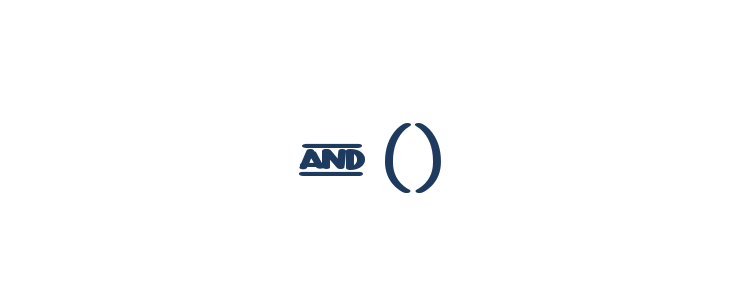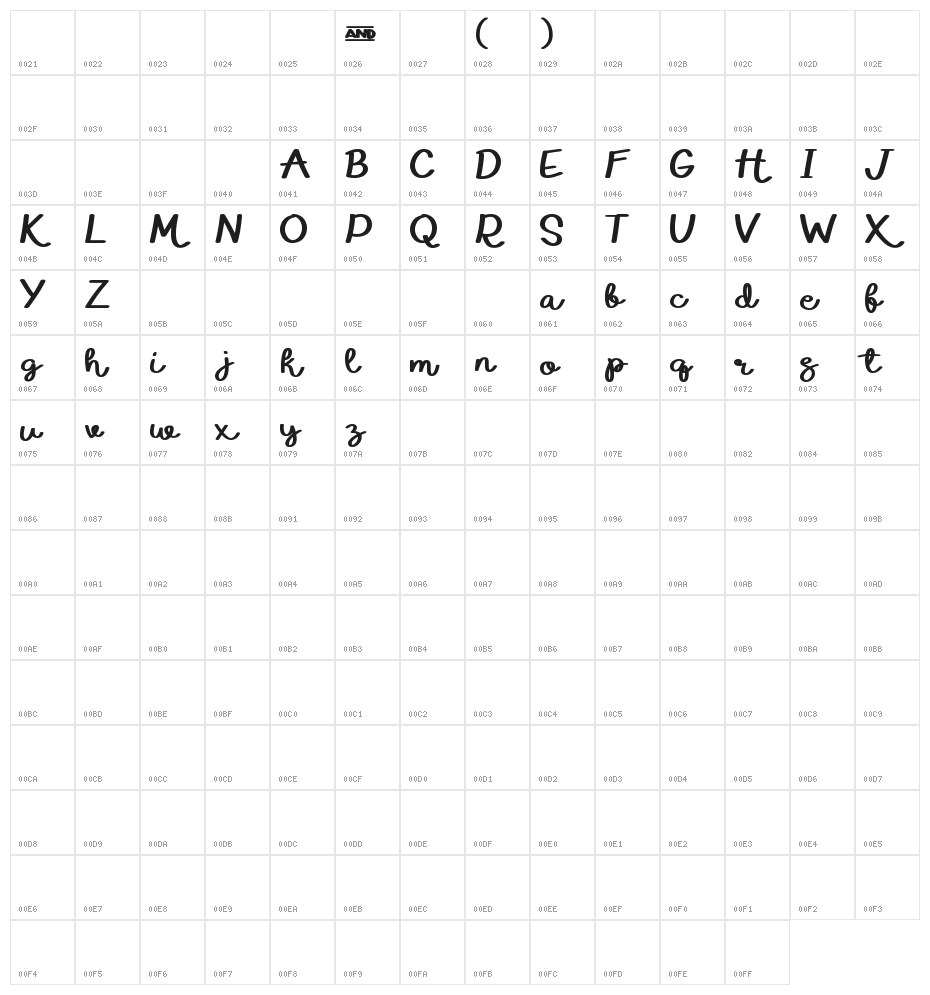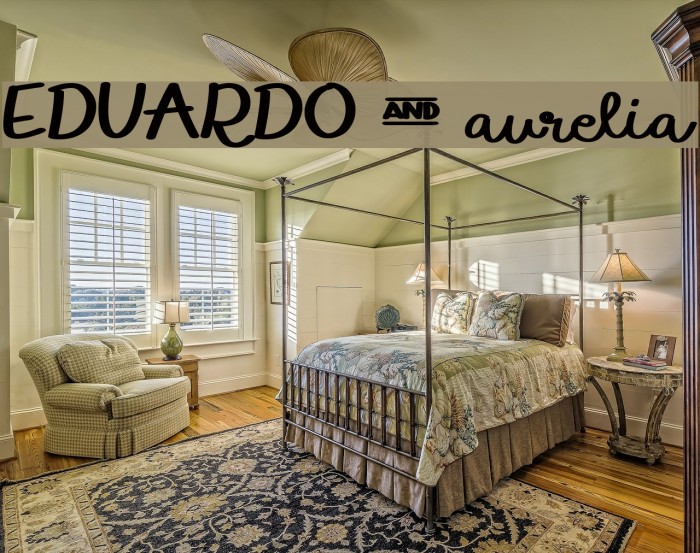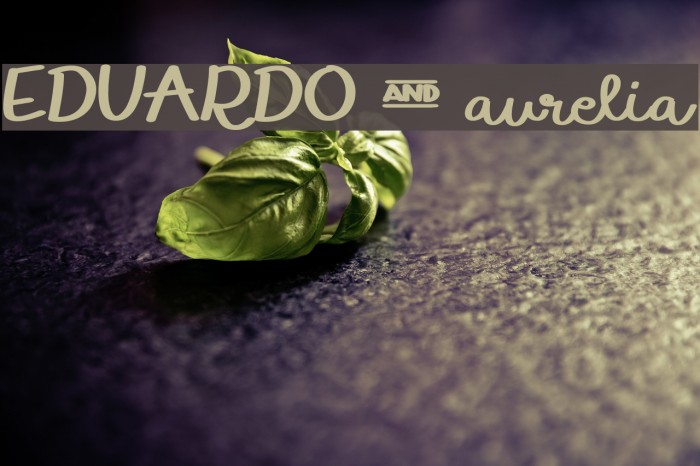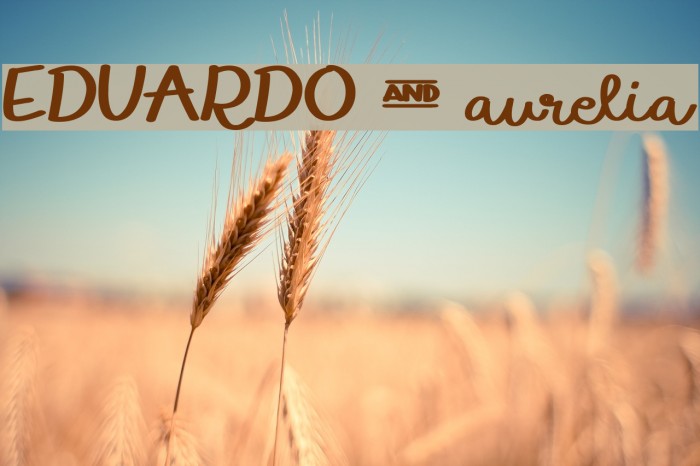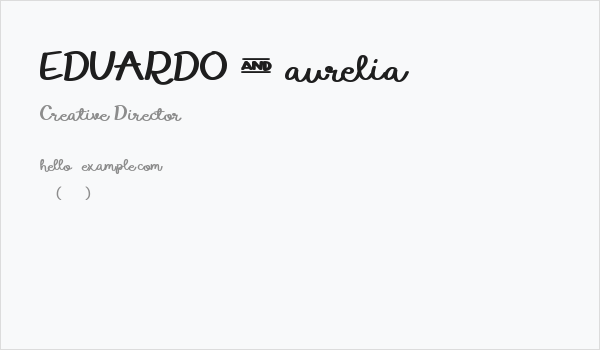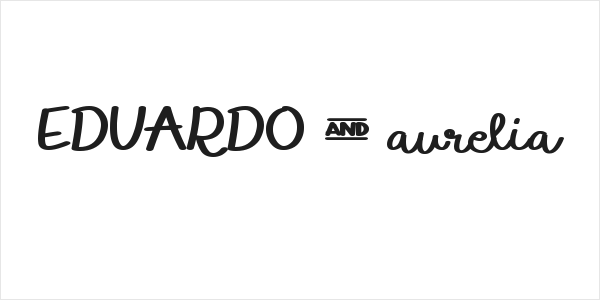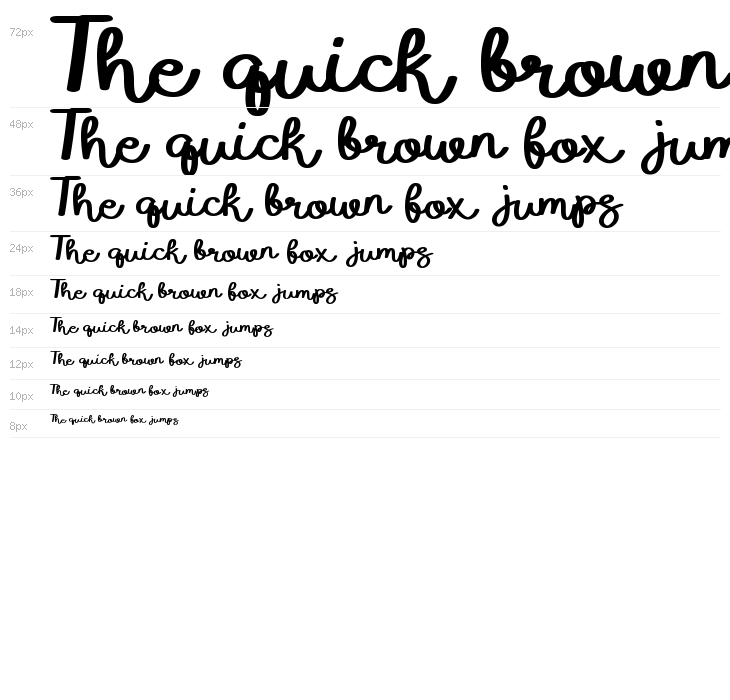
EDUARDO & aurelia Font
EDUARDO & aurelia Description
This font features a playful and flowing script style with a handwritten appearance. The uppercase letters are slightly slanted, giving a casual yet elegant look. The lowercase letters are more rounded and connected, enhancing the script's fluidity. The characters are bold and have a consistent stroke width, providing a strong presence. Special characters like 'AND' and parentheses are included, maintaining the same playful style. This font is ideal for projects that require a personal touch, such as invitations, greeting cards, or branding materials.
| Overall Style | Playful, Handwritten |
| Proposed Projects | Ideal for invitations, greeting cards, branding, and personal projects. |